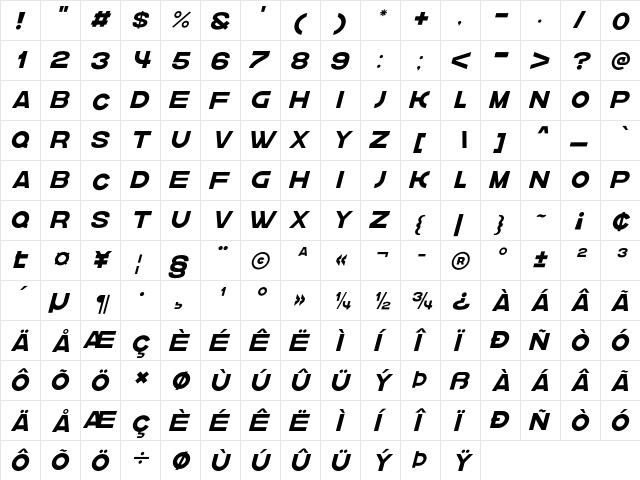
krown oblique Regular Font Preview
krown oblique Regular
krown oblique Regular Font Details
| Foundry | sigit nw |
Design Context for krown oblique Typeface
krown oblique takes a measured approach to typography — its balanced proportions and neutral character make it a reliable workhorse for both digital and print work. The dynamic lean of this cut emphasises speed and emphasis in any layout.